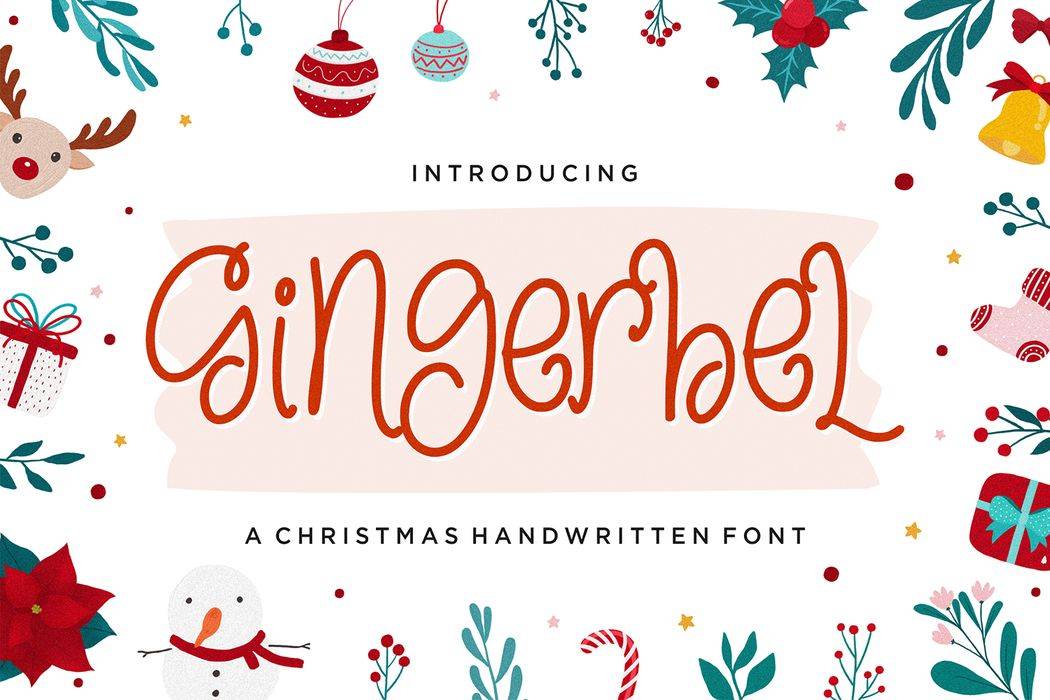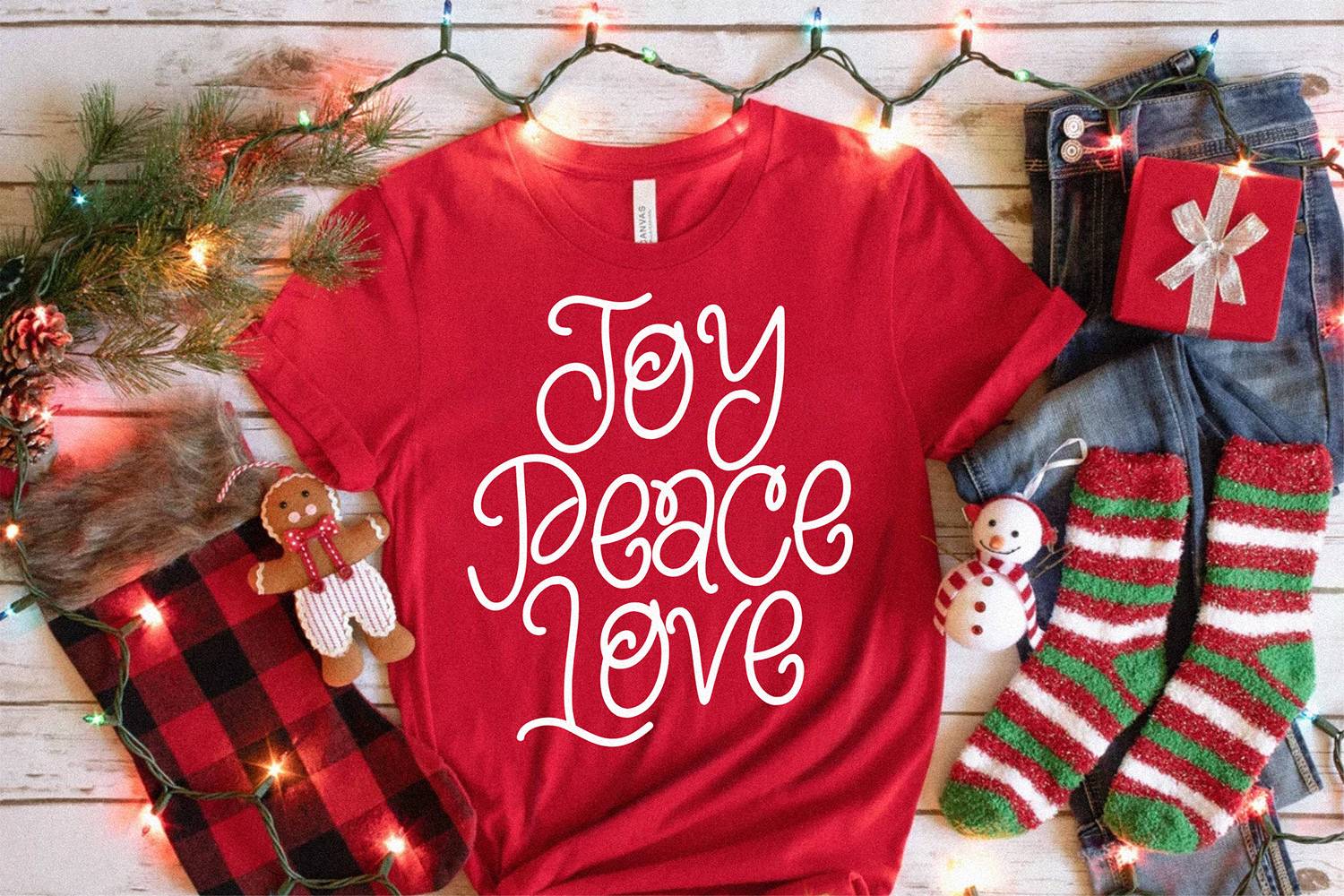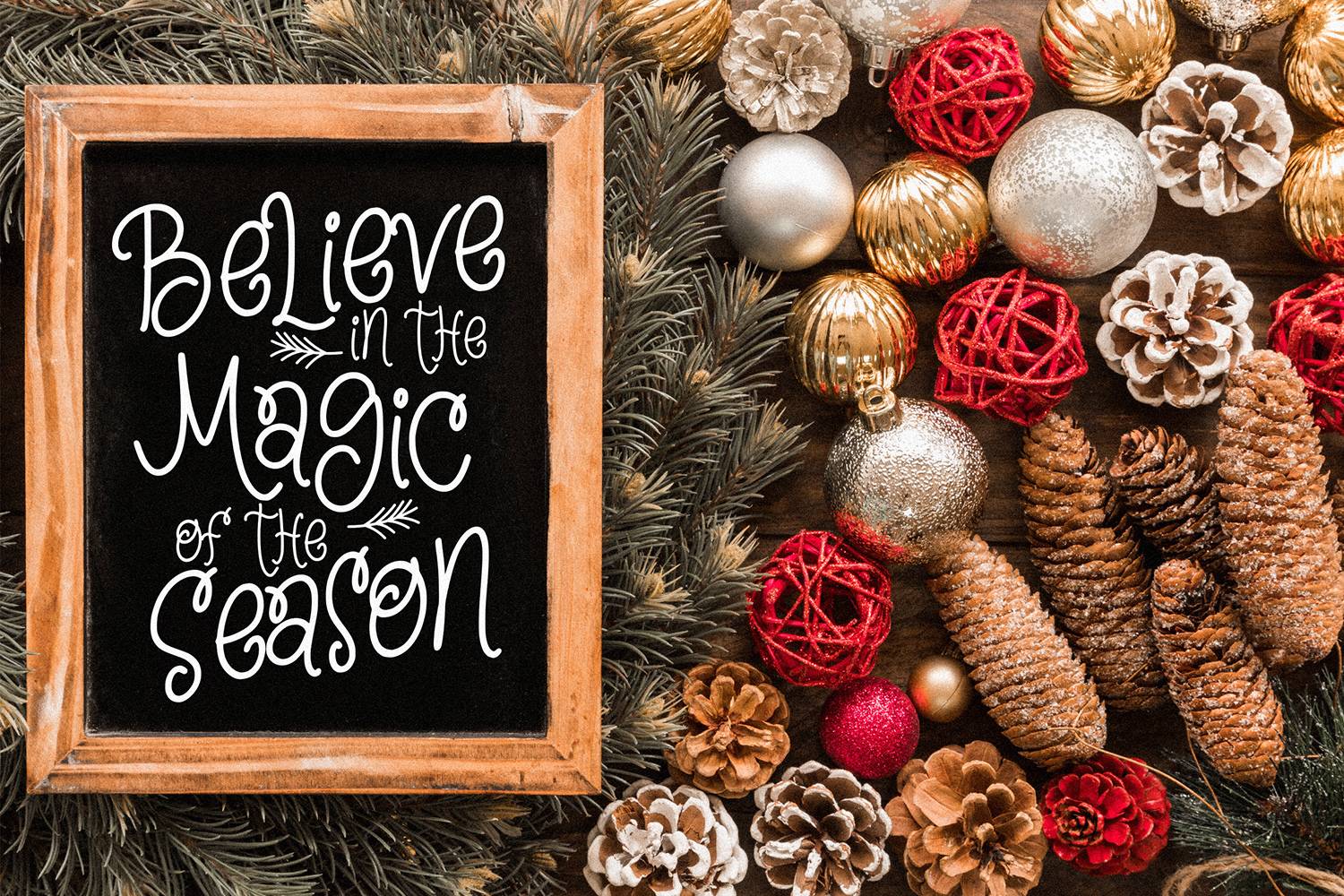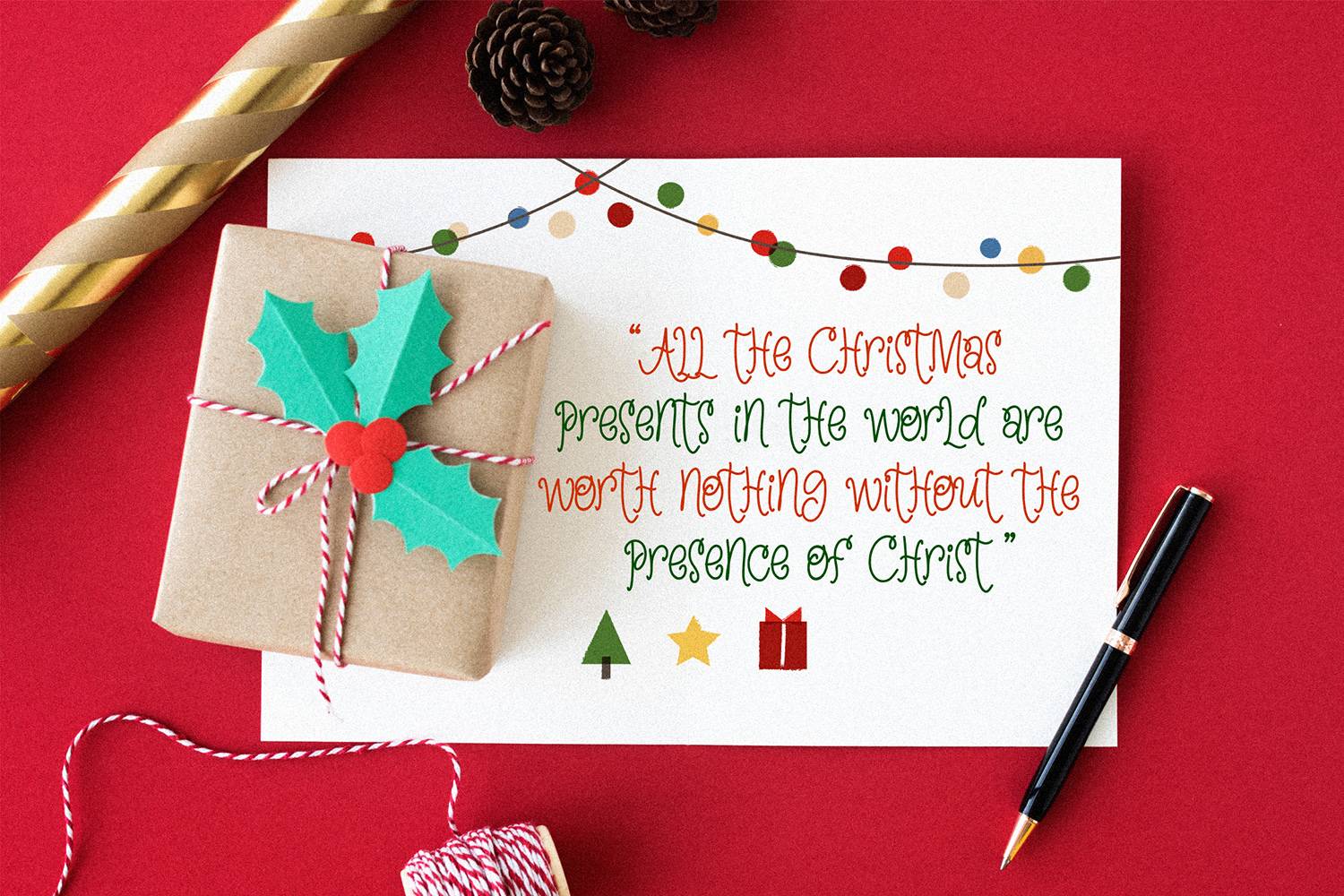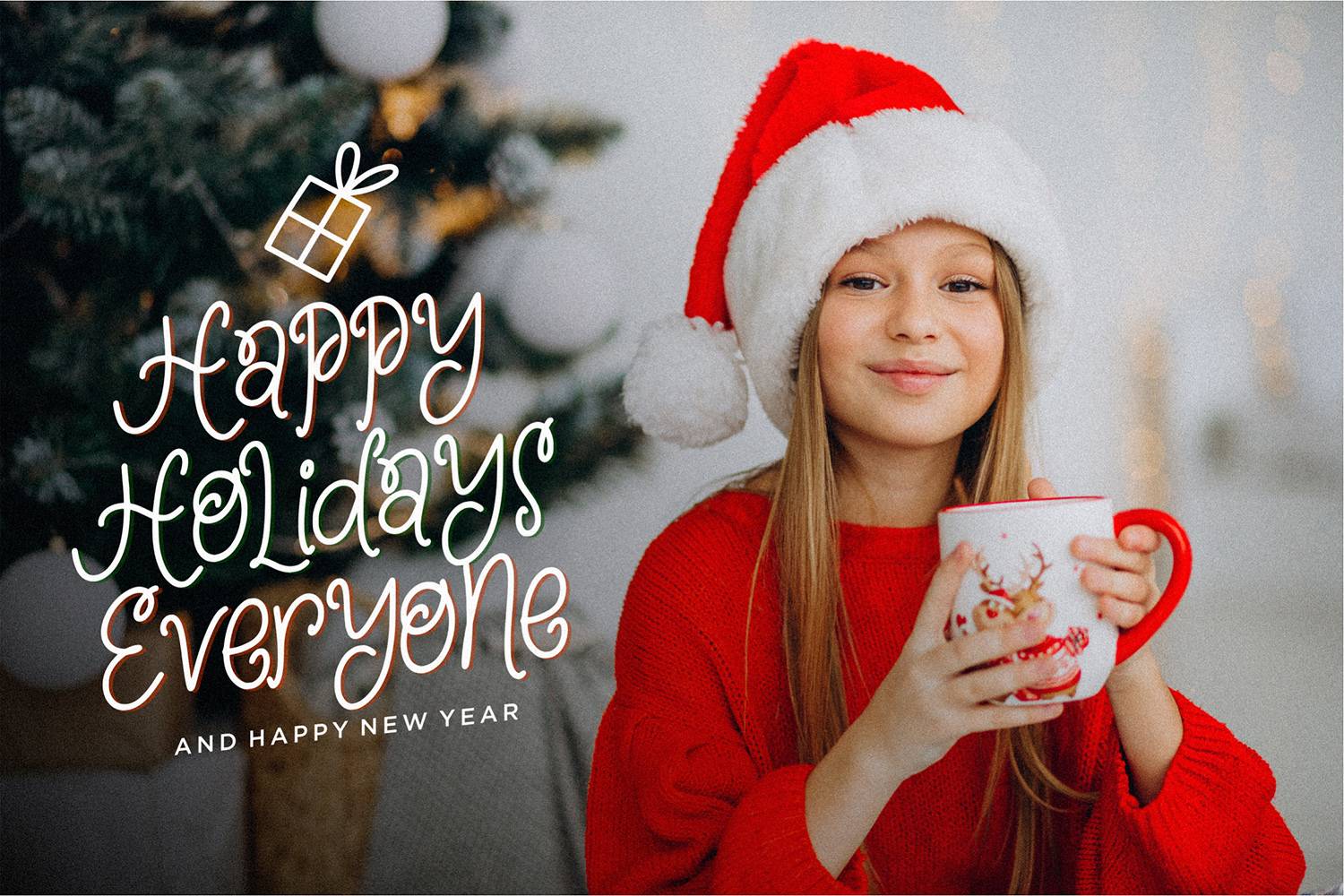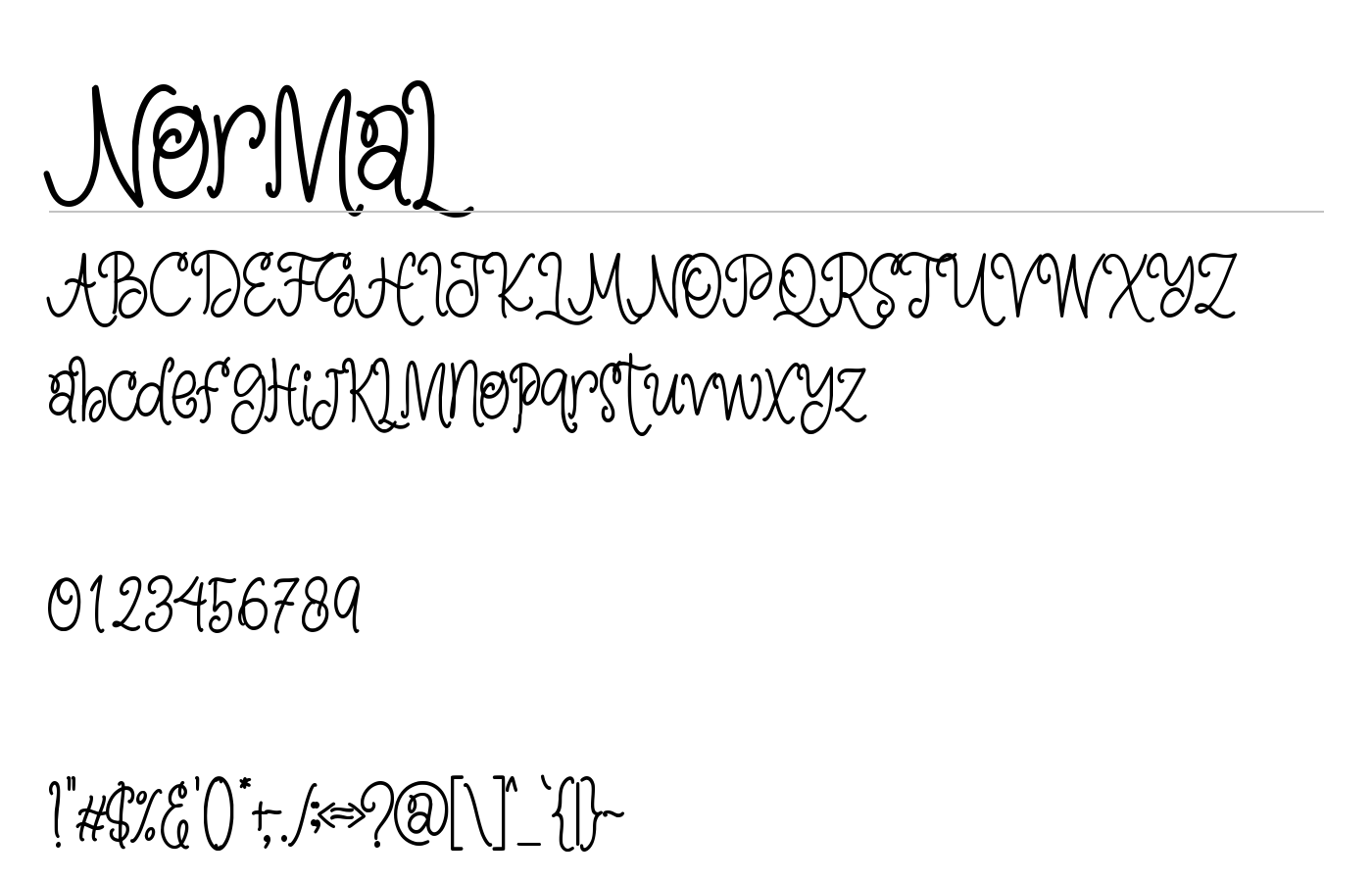
Gingerbel is a whimsical, handwritten script font with slender strokes and playful curls, giving it a charming and casual feel. Its light weight and airy letterforms make it ideal for creative projects like invitations, greeting cards, and branding that wants to convey friendliness and uniqueness. This font works best for headlines and decorative use where a personal, artistic touch is desired.
Gingerbel Font
About Gingerbel Font